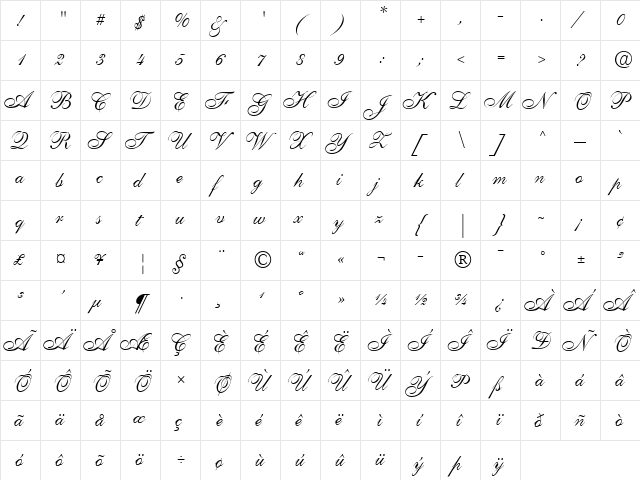
Allegretto Script One Regular
Design Context for Allegretto Script One Typeface
Allegretto Script One brings a calligraphic fluidity to the page — its connecting strokes and expressive curves give it an unmistakably human quality.
Font Pairing: Combine Allegretto Script One with a simple geometric sans for maximum contrast — the tension between flowing curves and clean structure is a classic typographic pairing.
Pro Tip: Pair Allegretto Script One with a clean sans-serif for supporting text. The contrast between fluid script and geometric structure creates an elegant typographic hierarchy.